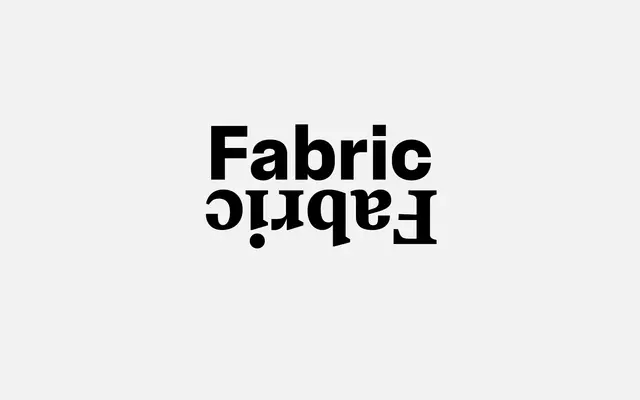
Fabric Sans
Monokrom · Frode Helland, Sindre Bremnes · 2020
A straight-sided grotesque by Frode Helland and Sindre Bremnes that generates visual texture through the interplay of apertures and whitespace rather than stroke contrast.
Designed as a counterpart to Fabric Serif, this grotesque shares structural foundations with its serif sibling in curve tension, rhythm and metrics, while diverging in morphology and detailing. The result is a typeface that pairs naturally across typographic hierarchies without flattening the contrast between the two. Four weights from Regular to Black each carry matching italics, and the design ships in OTF, WOFF and WOFF2 with active support for over 200 languages.
Described as a straight-sided grotesque with low contrast and tight apertures; fits the grotesque subcategory through its classic letterform structure and restrained geometry.